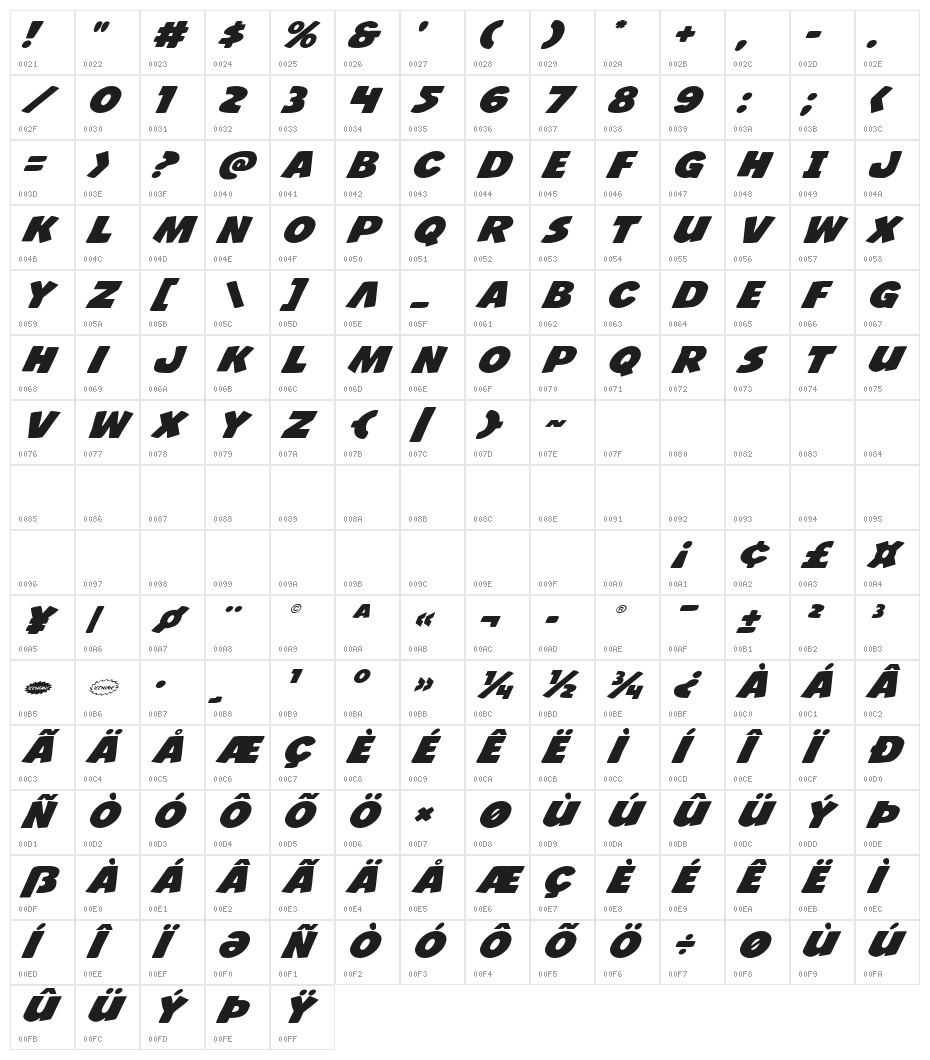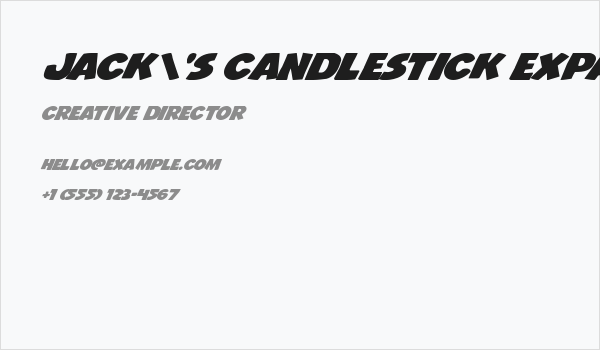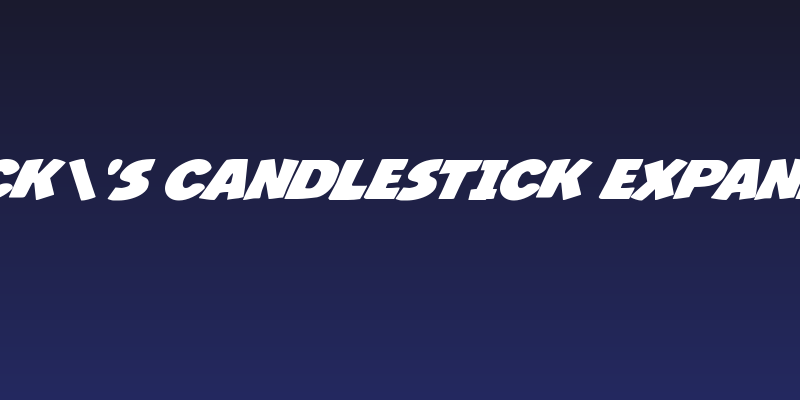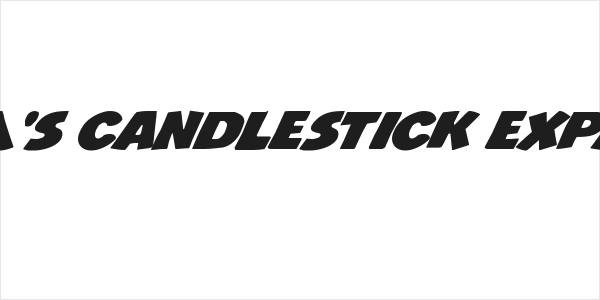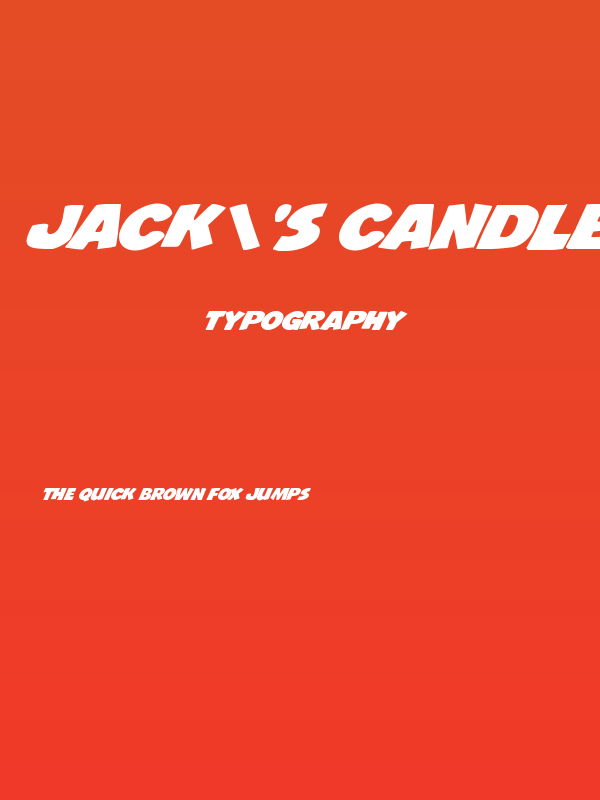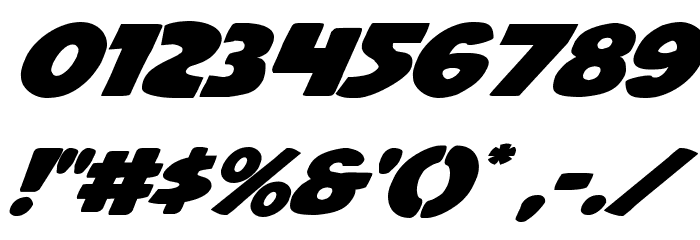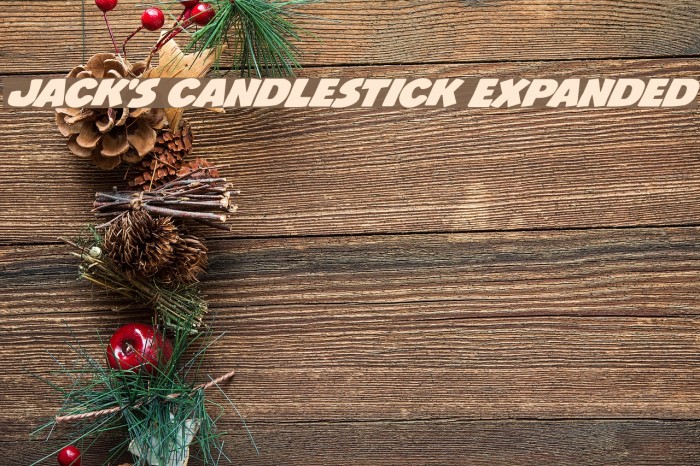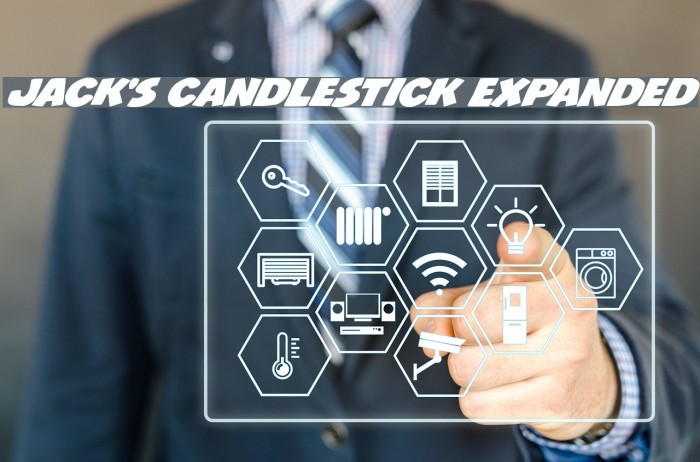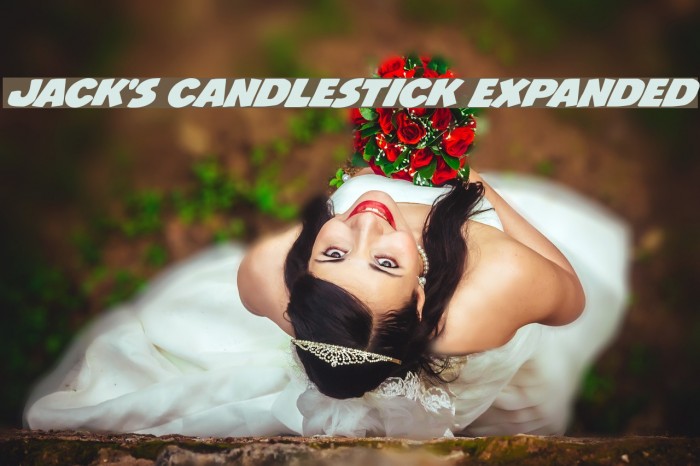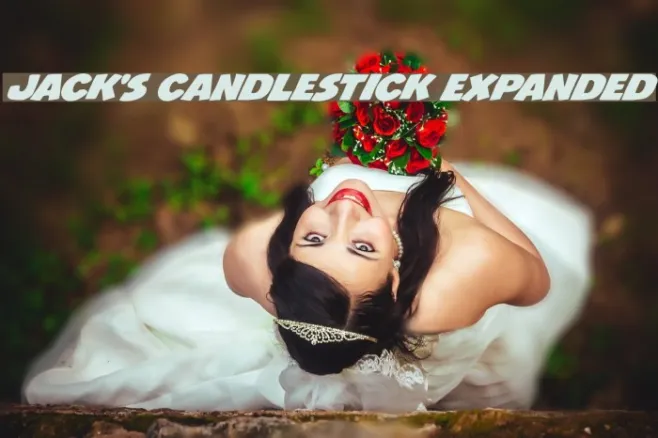
Jack's Candlestick Expanded Font
Jack's Candlestick Expanded Description
This bold and dynamic font features thick, heavy strokes with a pronounced slant, giving it a sense of movement and energy. The characters are wide and expanded, creating a strong visual impact. The uppercase letters are particularly striking, with a robust presence that commands attention. The numbers and special characters maintain the same bold style, ensuring consistency across all elements. This font is ideal for projects that require a powerful and assertive look.
| Proposed Projects | Ideal for sports branding, dynamic posters, bold headlines, and eye-catching advertisements. |